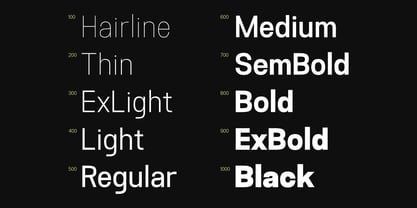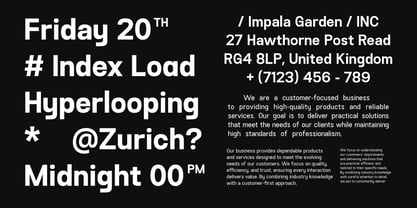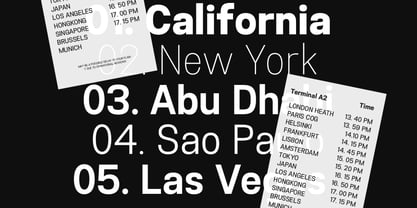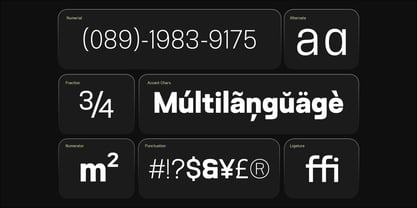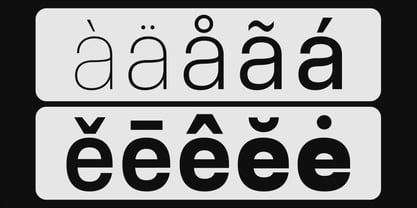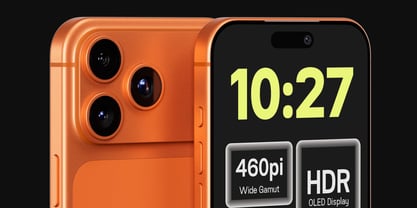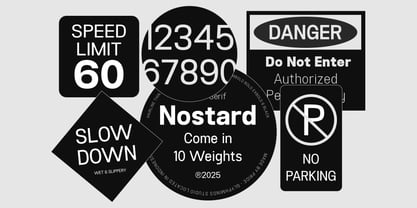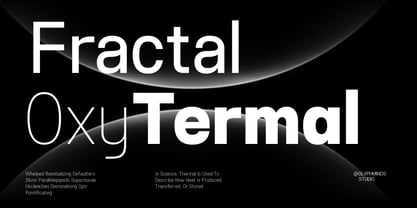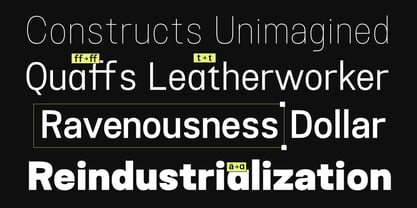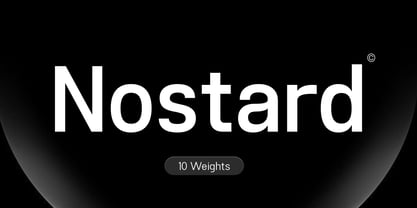
Nostard
by Glyphminds Studios
The Nostard Font Family was designed by Baliya Ibnu Bi Malkan and published by Glyphminds Studios. Nostard contains 10 styles and family package options. More about this family
One Font Family. Infinite Possibilities. Meet Nostard, the modern sans serif designed to be the backbone of your design library. Whether you need the ethereal elegance of a Hairline weight for high-end fashion or the commanding authority of a Black weight for a bold brand identity, Nostard delivers with mathematical precision. Crafted for the modern designer, Nostard bridges the gap between functional legibility and aesthetic minimalism. Its clean lines and balanced proportions make it a powerhouse for UI/UX interfaces, corporate branding, and sophisticated editorial layouts Elevate your design standards with a typeface built for excellence. Experience the precision of Nostard. If you’re looking for a reliable modern typeface that looks premium and works everywhere, Nostard is the perfect choice
Designers: Baliya Ibnu Bi Malkan
Foundry: Glyphminds Studios